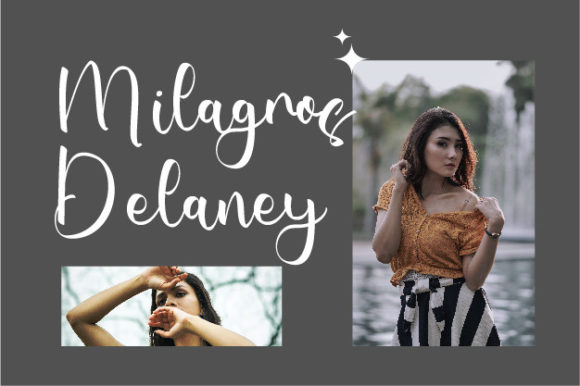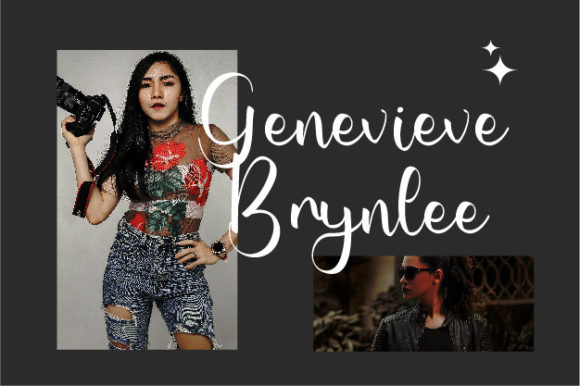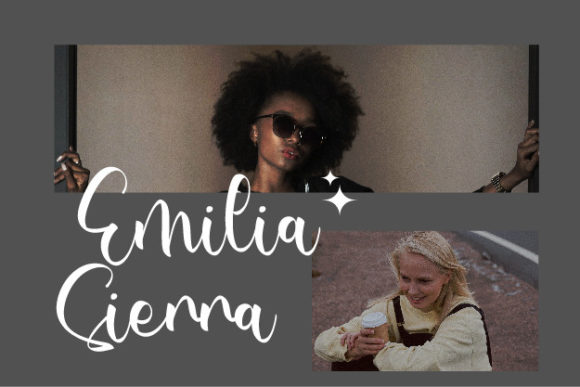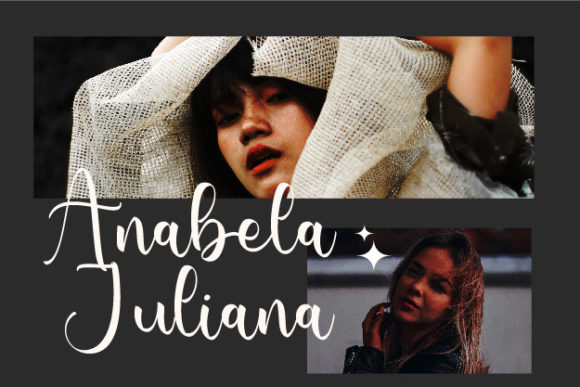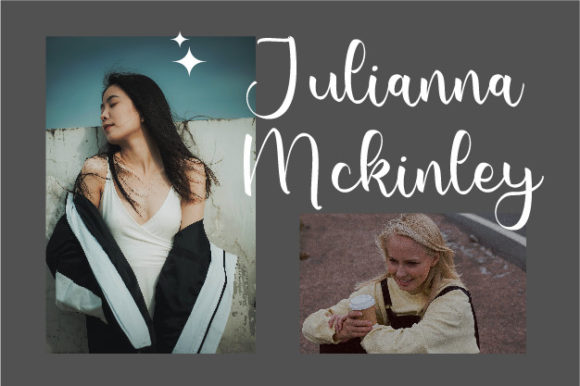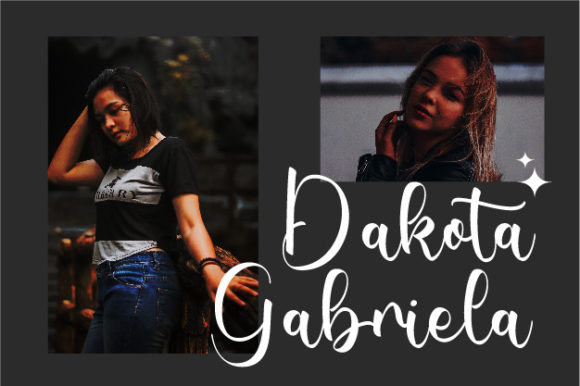
Introducing Carlee Harley Font: The Perfect Addition to Your Design Arsenal
Are you a designer or crafter looking for a font that can add a touch of elegance and romance to your projects? Look no further than the Carlee Harley Font. This enchanting handwritten font is versatile, charming, and perfect for a wide range of applications. In this article, we’ll dive into the world of Carlee Harley Font and explore its features, uses, and benefits.
What is Carlee Harley Font?
Carlee Harley Font is a beautiful, handwritten script font that exudes a sense of romance and sophistication. Its flowing lines, delicate curves, and whimsical flair make it perfect for adding a touch of elegance to any design project. Whether you’re creating greeting cards, headlines, or social media graphics, Carlee Harley Font is sure to impress.
Features of Carlee Harley Font
So, what makes Carlee Harley Font so special? Here are just a few of its standout features:
- Handwritten charm: Carlee Harley Font has a distinctly handwritten feel that’s both personal and inviting.
- Versatility: This font is suitable for a wide range of applications, from formal events to casual designs.
- Romantic flair: Carlee Harley Font has a whimsical, romantic quality that’s perfect for weddings, anniversaries, and other special occasions.
- Elegant lines: The font’s flowing lines and delicate curves create a sense of sophistication and refinement.
Uses for Carlee Harley Font
So, how can you use Carlee Harley Font in your design projects? Here are just a few ideas to get you started:
- Greeting cards: Add a touch of elegance to your greeting cards with Carlee Harley Font.
- Headlines: Use Carlee Harley Font to create eye-catching headlines for your blog posts, social media graphics, and more.
- Wedding designs: Carlee Harley Font is perfect for wedding invitations, programs, and other stationery.
- Social media graphics: Add a touch of personality to your social media graphics with Carlee Harley Font.
- Branding: Use Carlee Harley Font to create a unique and memorable brand identity.
Benefits of Using Carlee Harley Font
So, why should you choose Carlee Harley Font for your design projects? Here are just a few benefits:
- Unique and distinctive: Carlee Harley Font is a one-of-a-kind font that will set your designs apart from the crowd.
- Easy to read: Despite its elegant lines and curves, Carlee Harley Font is surprisingly easy to read, even at small sizes.
- Versatile: Carlee Harley Font can be used for a wide range of applications, from formal to casual.
- Time-saving: With Carlee Harley Font, you can create professional-looking designs in no time.
Tips for Using Carlee Harley Font
Here are a few tips for getting the most out of Carlee Harley Font:
- Pair with contrasting fonts: Pair Carlee Harley Font with a contrasting font to create visual interest and add depth to your designs.
- Experiment with colors: Carlee Harley Font looks great in a range of colors, from bold and bright to soft and pastel.
- Use it sparingly: While Carlee Harley Font is beautiful, it can be overwhelming if overused. Use it sparingly to create a sense of elegance and sophistication.
In conclusion, Carlee Harley Font is a beautiful, versatile font that’s perfect for designers and crafters looking to add a touch of elegance and romance to their projects. With its handwritten charm, elegant lines, and whimsical flair, Carlee Harley Font is sure to impress. Whether you’re creating greeting cards, headlines, or social media graphics, Carlee Harley Font is the perfect addition to your design arsenal.